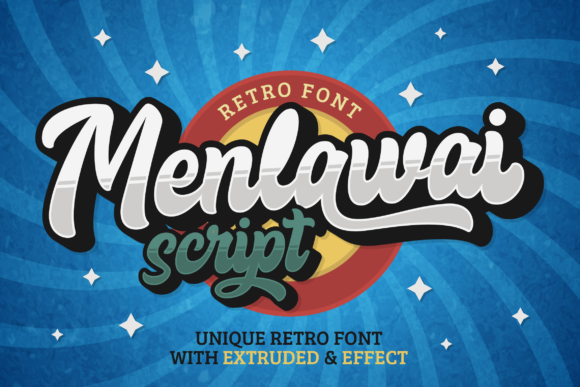
Unleash the captivating artistry of Menlawai, a mesmerizing handwritten font that breathes life into your creative endeavors. With its bold strokes and retro charm, Menlawai adds a touch of nostalgia and personality to your designs. Let your headlines command attention, and your logotype projects exude confidence and dynamism.
Immerse yourself in a world of creativity with Menlawai, a font that speaks to your soul. Its unique glyphs and swashes, easily accessible with PUA encoding, invite you to explore endless design possibilities. Express your individuality and make a lasting impression with Menlawai, the font that fuels your imagination.
Embark on a journey of artistic exploration, where Menlawai becomes your trusted companion. Its versatility knows no bounds, allowing you to transform ordinary designs into captivating masterpieces. Elevate your branding, social media posts, and digital content with Menlawai's timeless appeal.
Don't settle for ordinary fonts that fail to capture your true essence. Embrace the boldness of Menlawai and let your creativity soar. Experience the joy of crafting designs that resonate with your audience and leave an indelible mark.